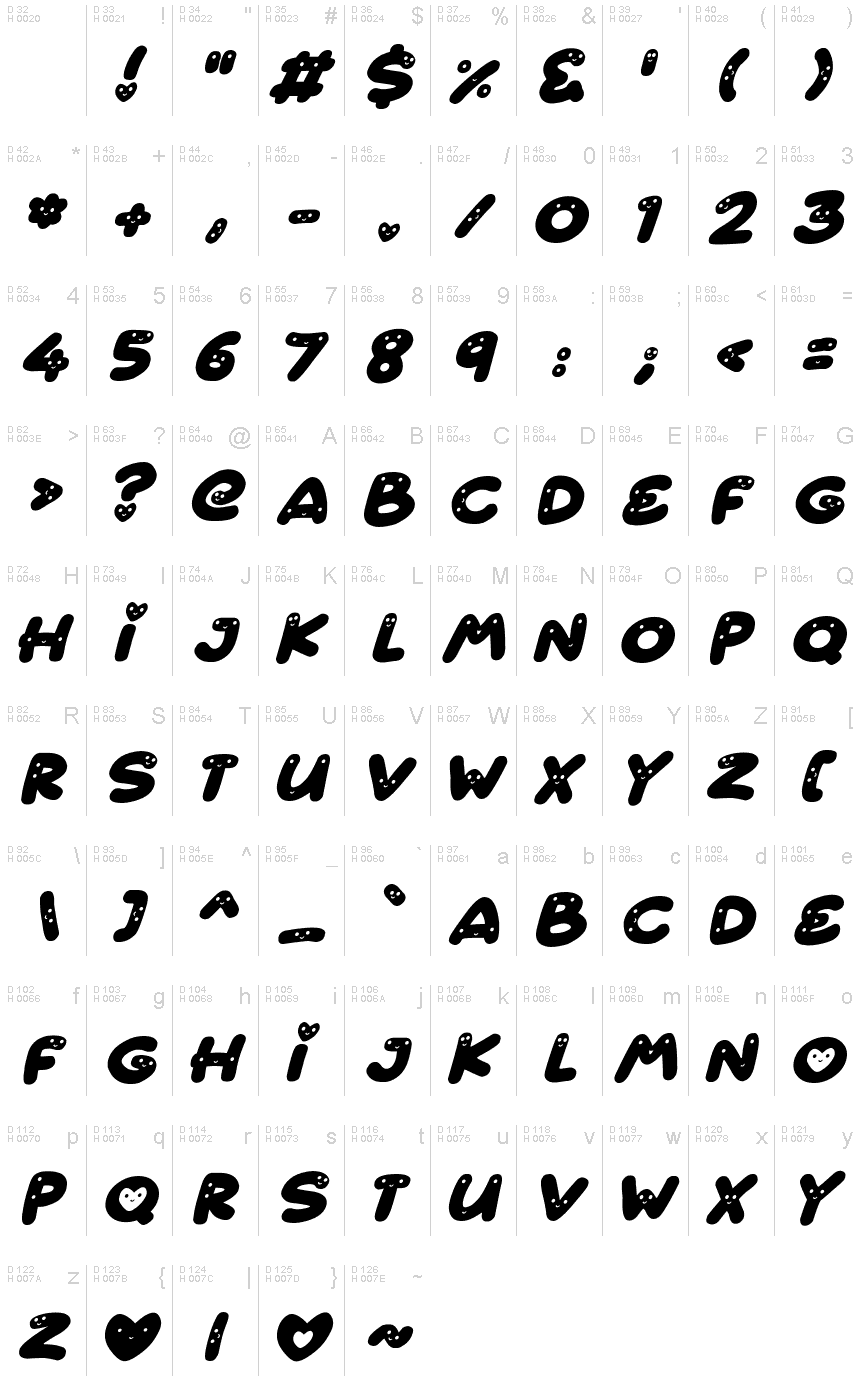
Cutest Things Italic
Cutest Things Italic is a bold, wide display font by designer Darrell Flood. Ideal for cartoon-style projects, this playful font family will bring a unique and whimsical touch to your designs.